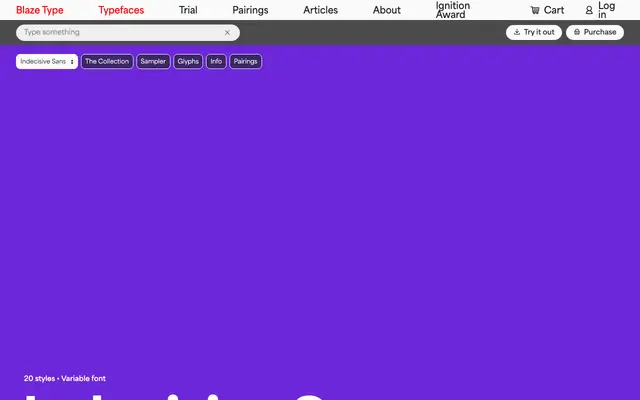
Indecisive Sans specimen from Blaze Type
A geometric sans blending influences from Bernhard Gothic, Nobel and Spartan, with swash alternates drawn from old-style italic serif traditions for added character.
Twenty styles run from Thin to Heavy across a variable font, each weight accompanied by a slanted counterpart rather than a true italic. Alternate swash characters derived from punchcutters such as Granjon give the family a distinctly hybrid character, with standout details on the /r, /w, /K and /R. Heavier weights allow strokes to merge for expressive display work, while lighter weights hold up at longer text sizes.
Described explicitly as a geometric sans, drawing on sources including Bernhard Gothic, Nobel Antieke and Spartan, with swash alternates from old-style italic serifs adding a playful, hybrid quality.